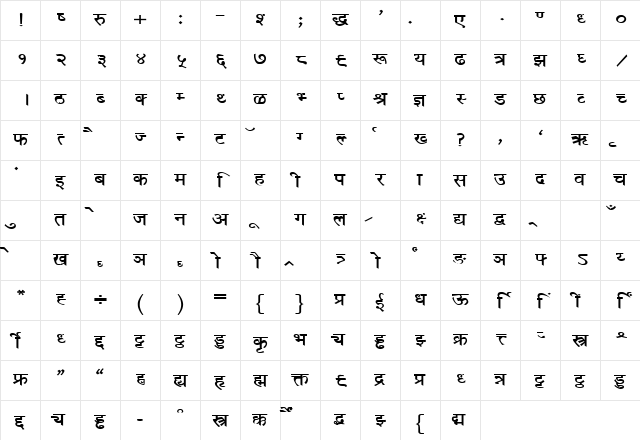
DEV006 Normal
Design Context for DEV006
DEV006 is a composed and adaptable typeface that performs quietly and consistently across a wide range of design contexts.